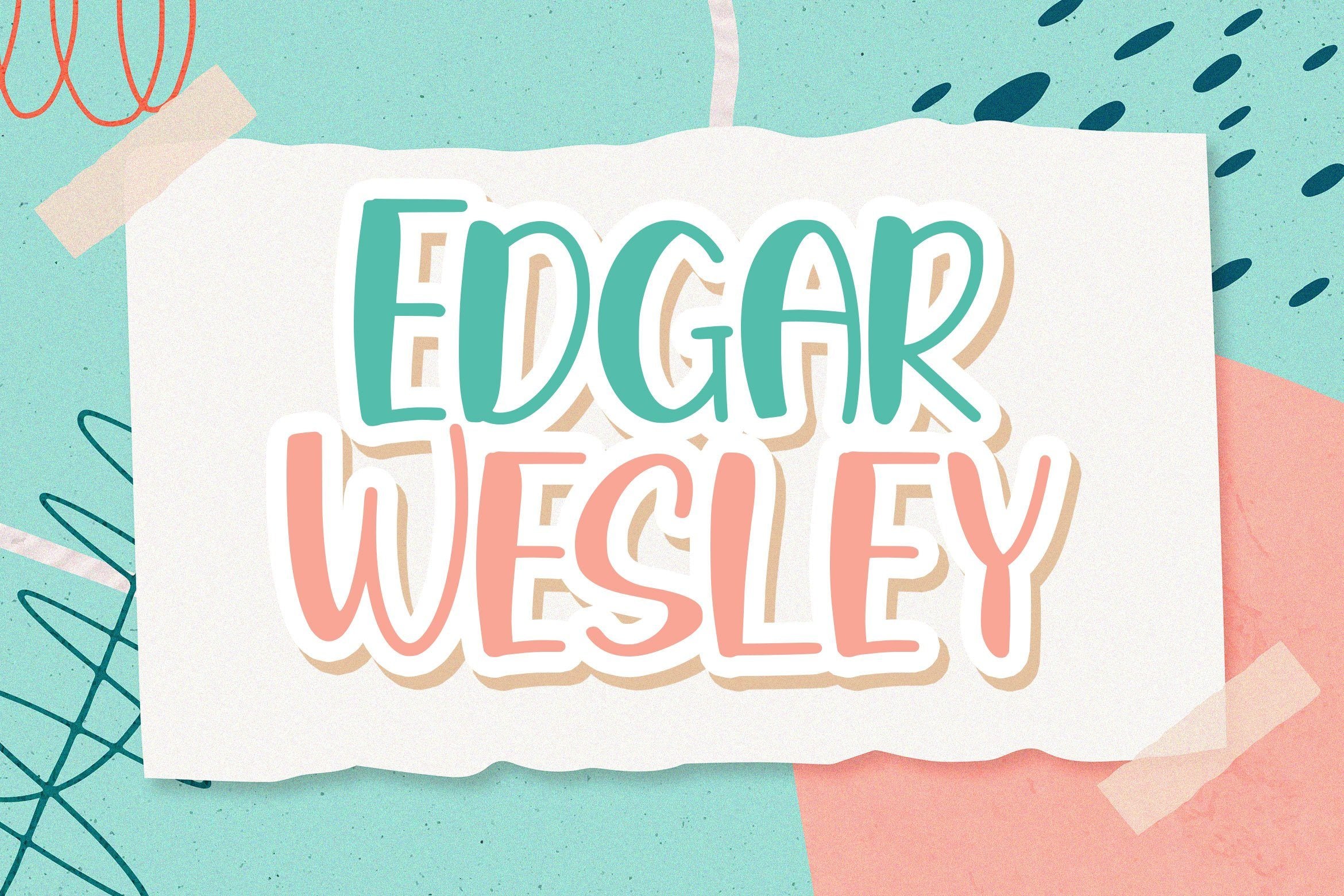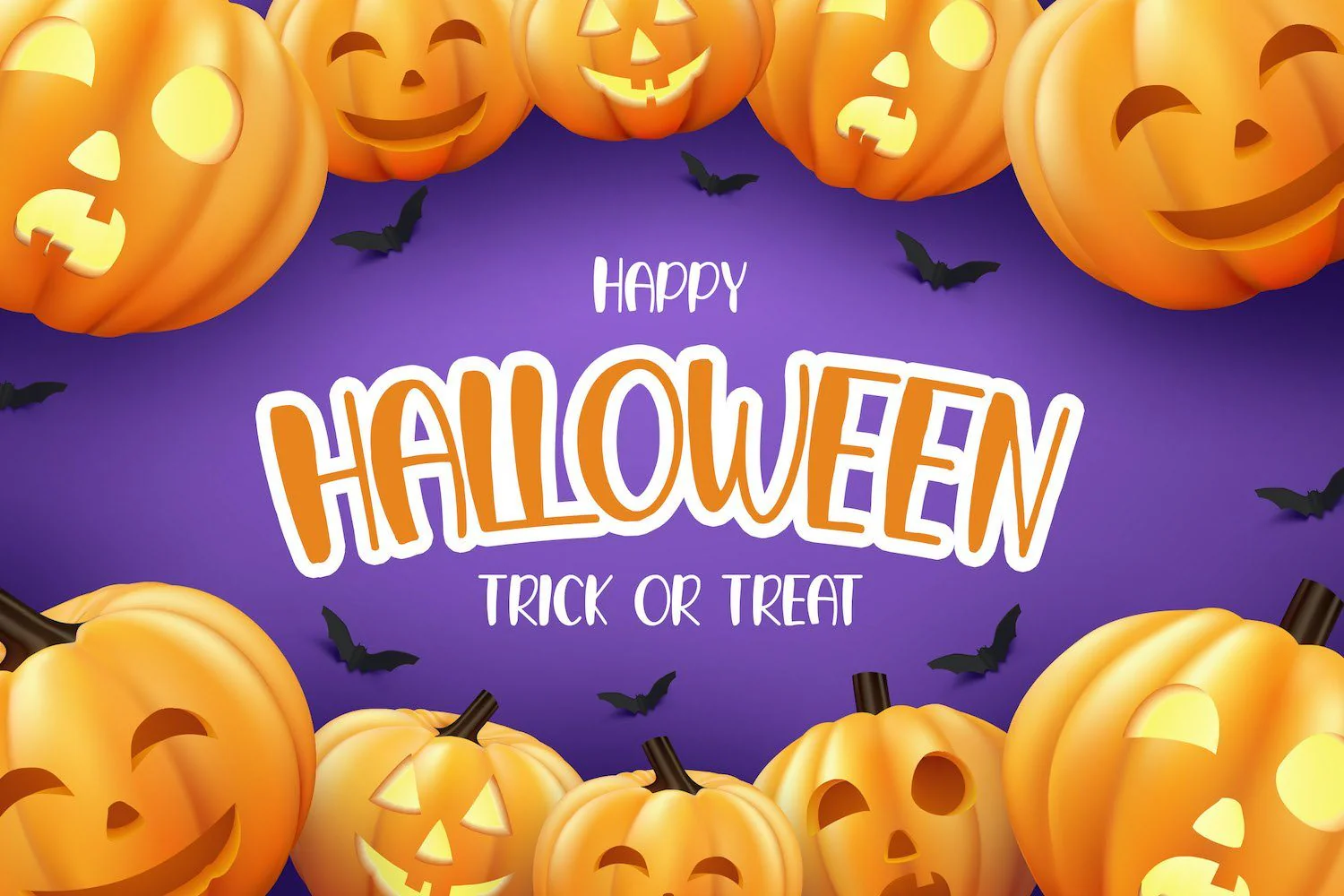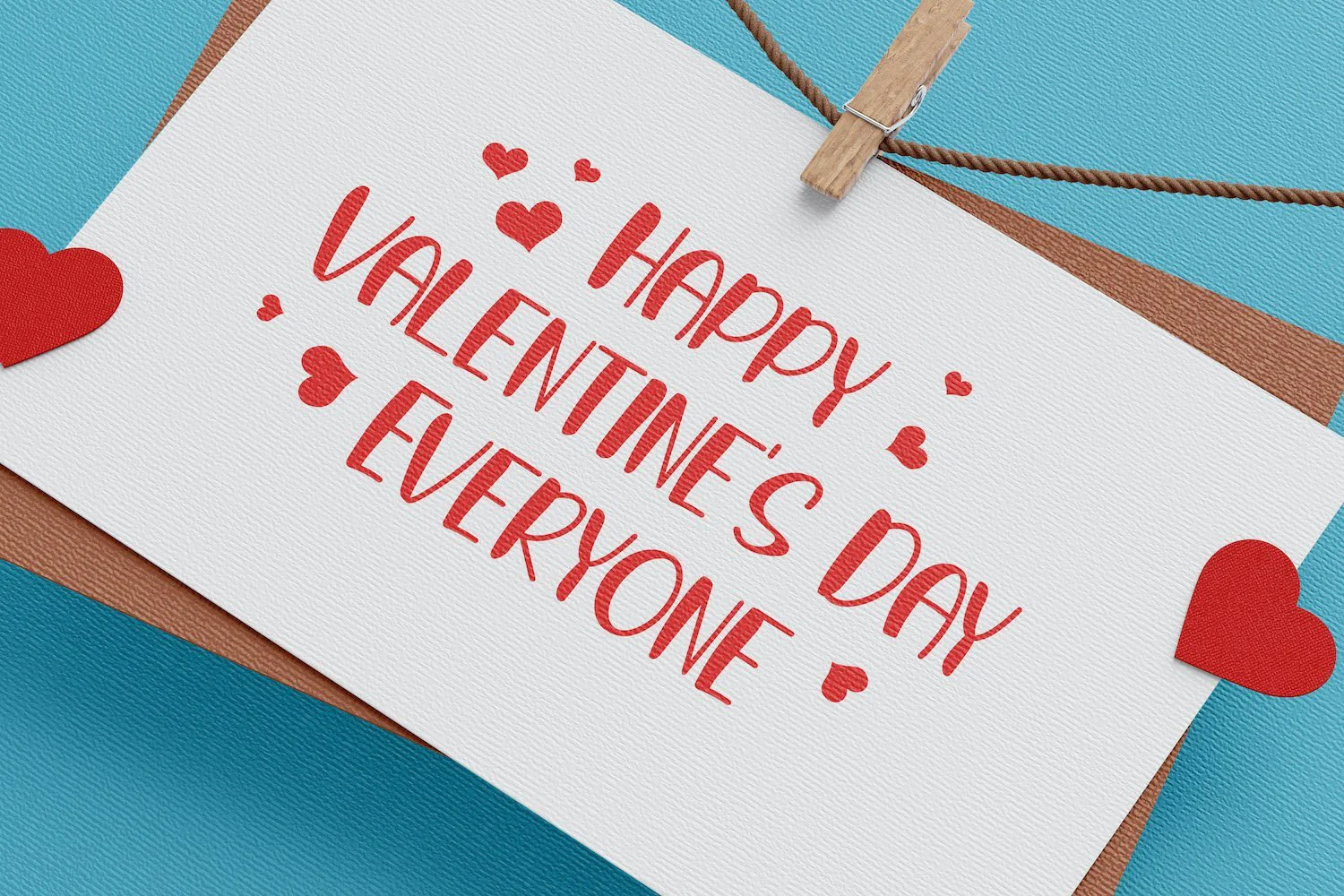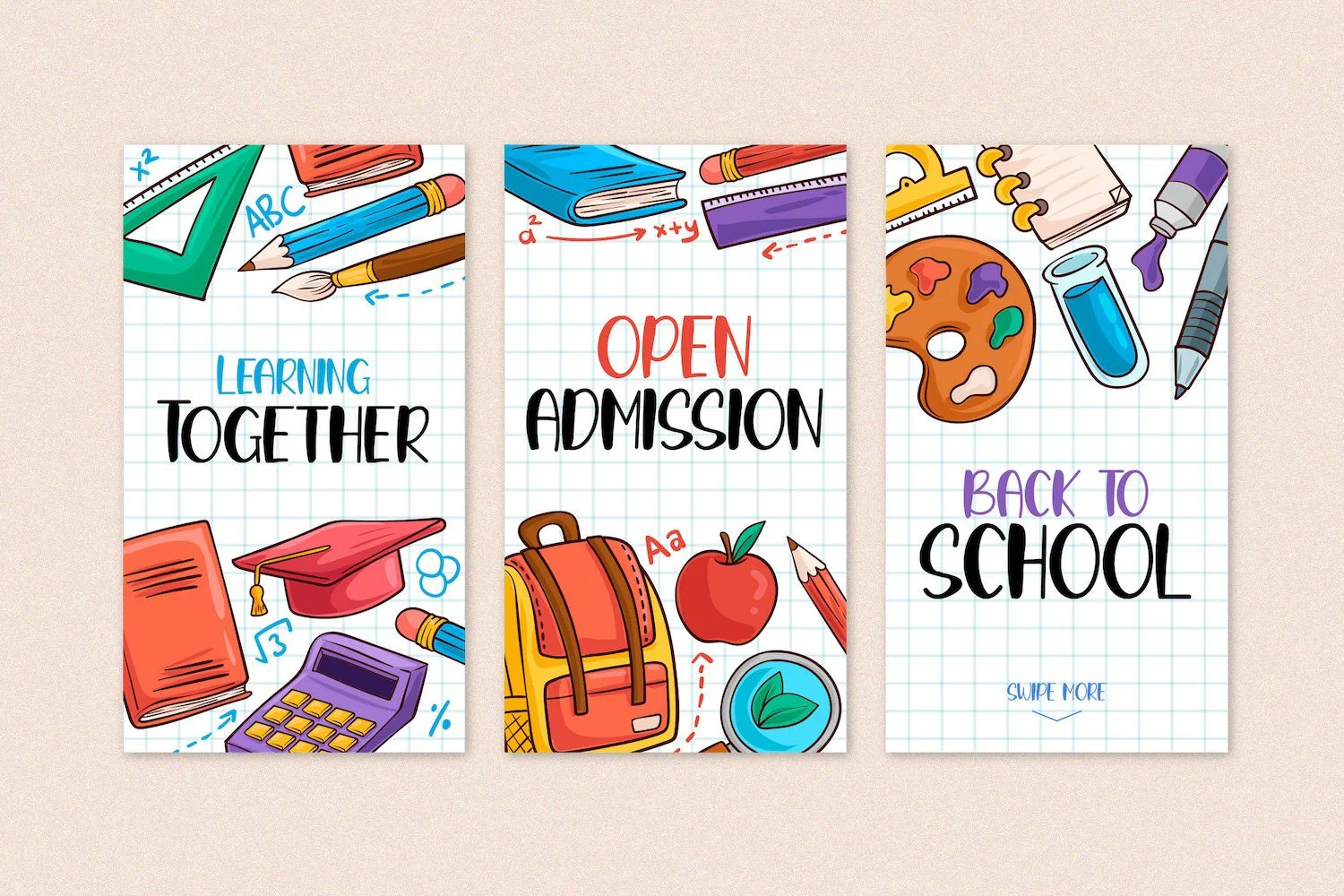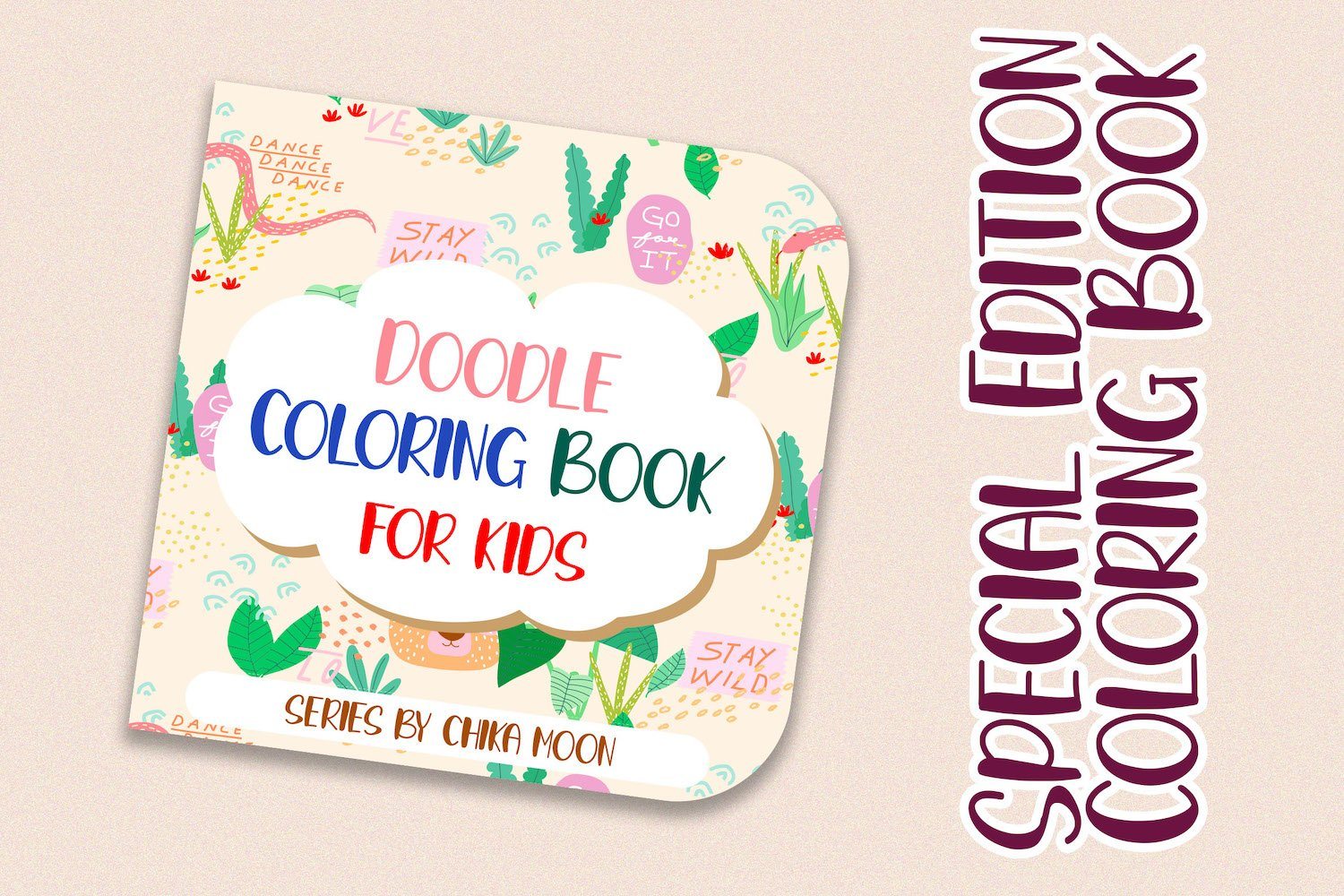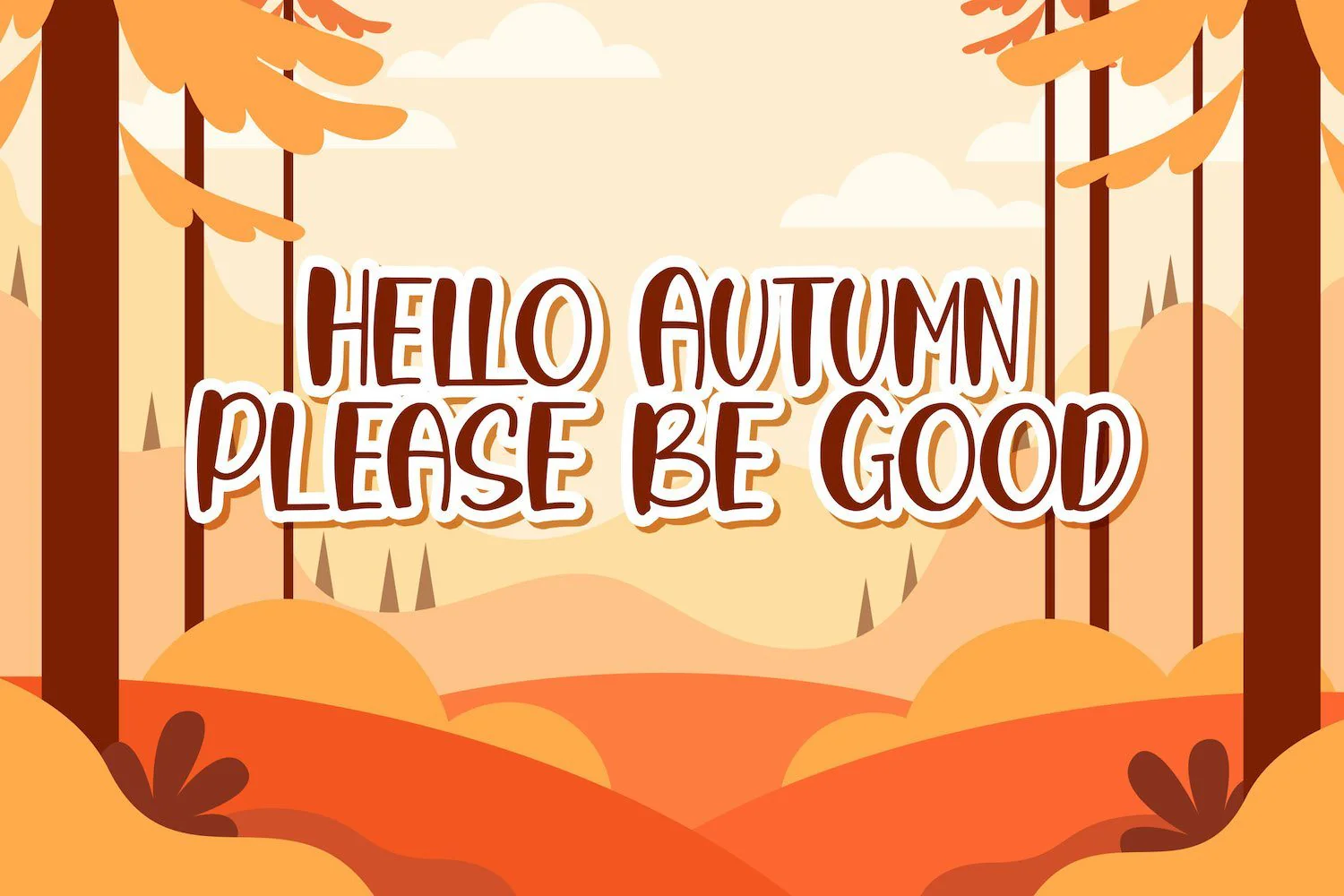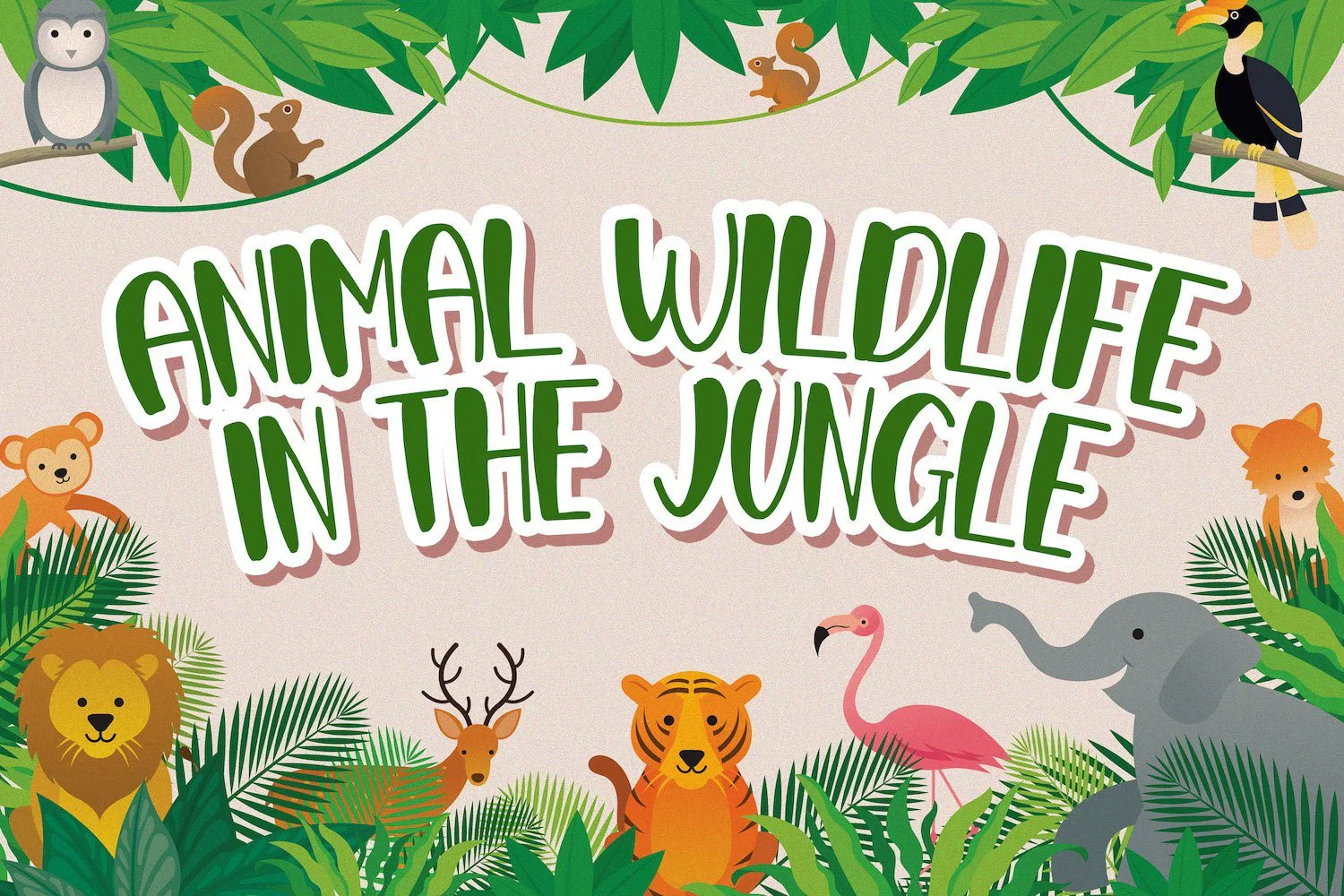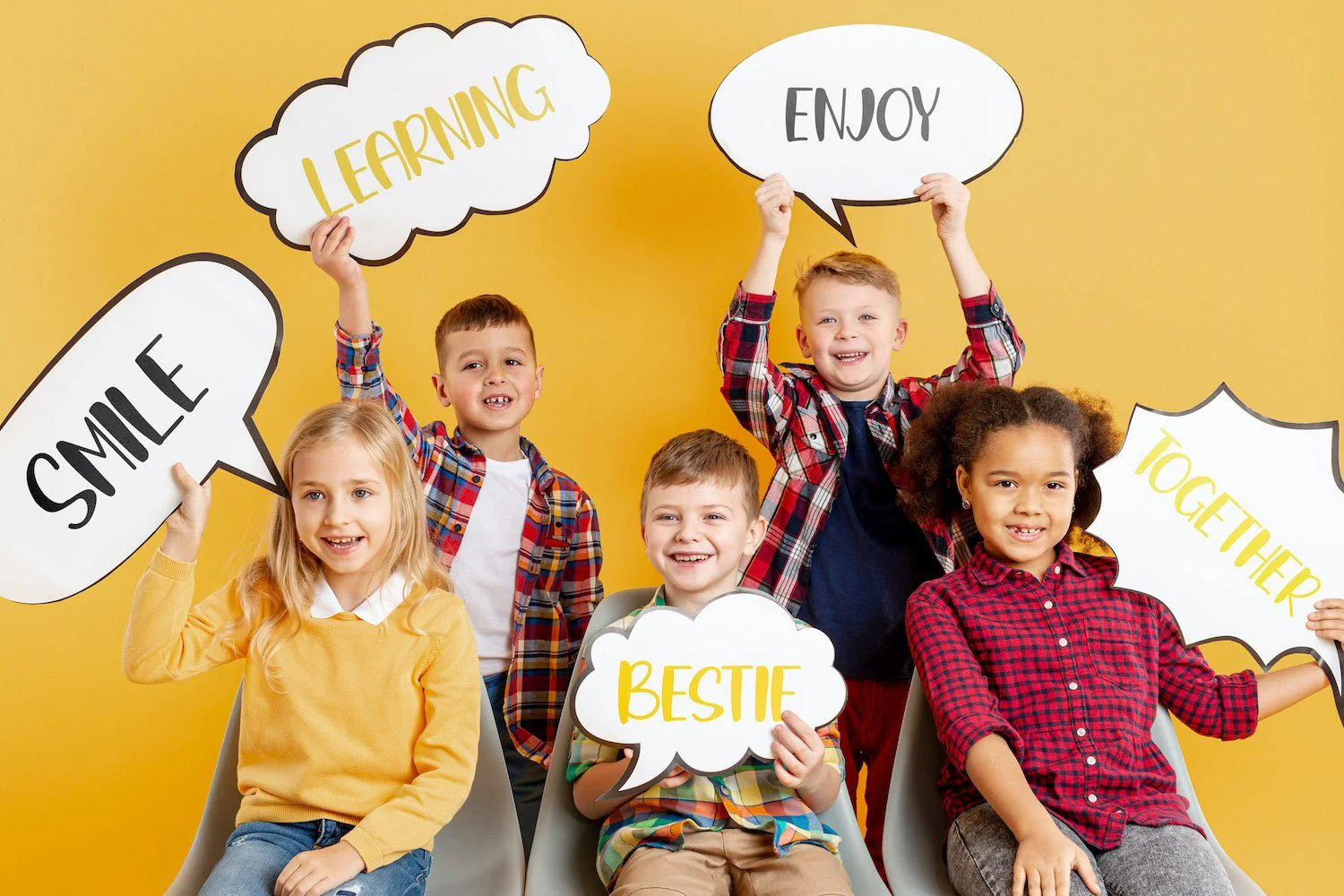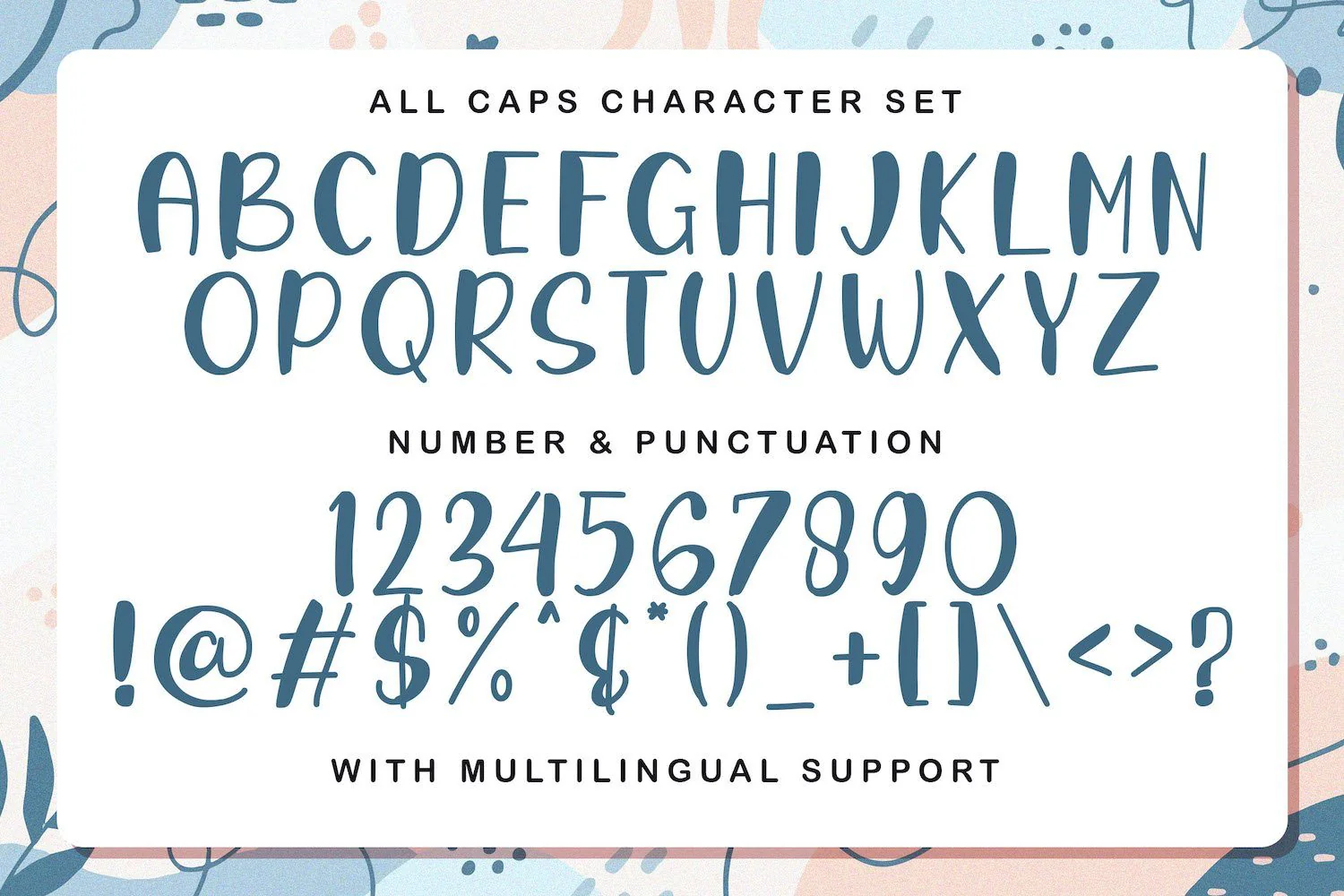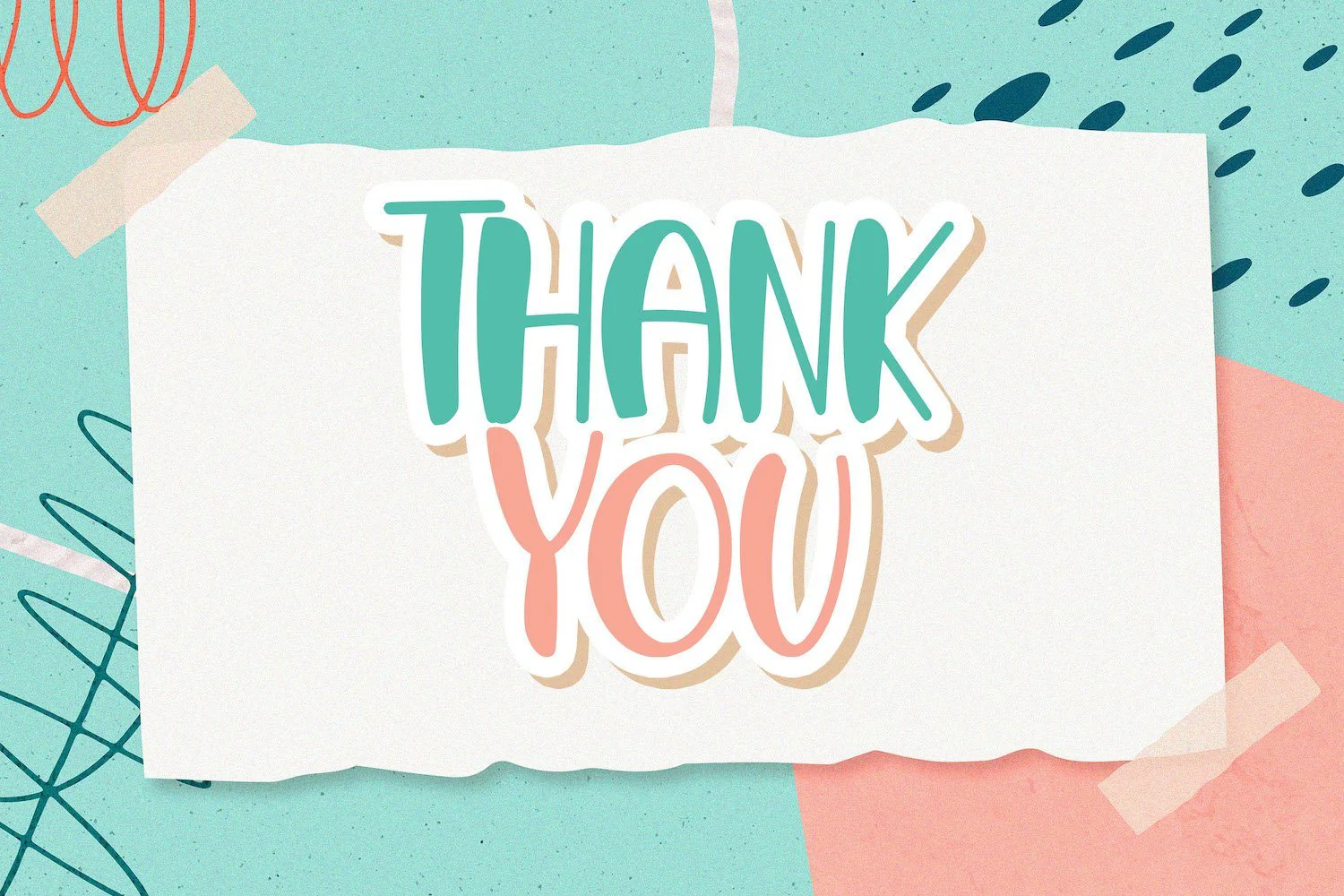
Edgar Wesley - Playful Display Font
Introducing Edgar Wesley - Playful Display Font
Edgar Wesley is a fun display font. Playful and fresh, this font will be a hit for each of your children or school projects!
Introducing Edgar Wesley - Playful Display Font
Edgar Wesley is a fun display font. Playful and fresh, this font will be a hit for each of your children or school projects!